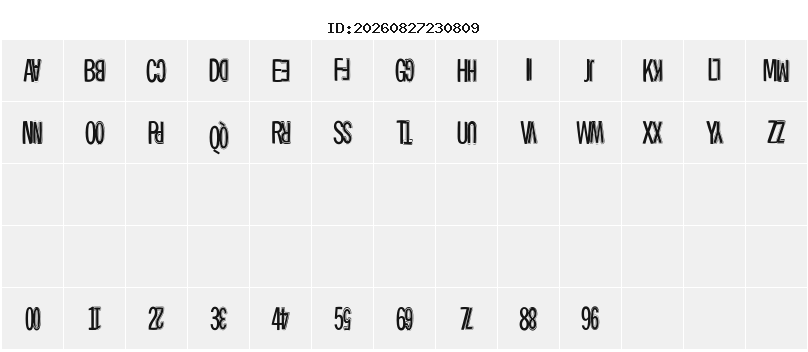
TwinsetSixtyNine Preview
• Font Name: TwinsetSixtyNine
• Full Font Name: TwinsetSixtyNine
• Character Count: 46
About TwinsetSixtyNine.ttf
TwinsetSixtyNine.ttf is a modern, elegant sans-serif font designed for ultimate readability and visual harmony. Perfect for branding, headlines, web design, and print materials.